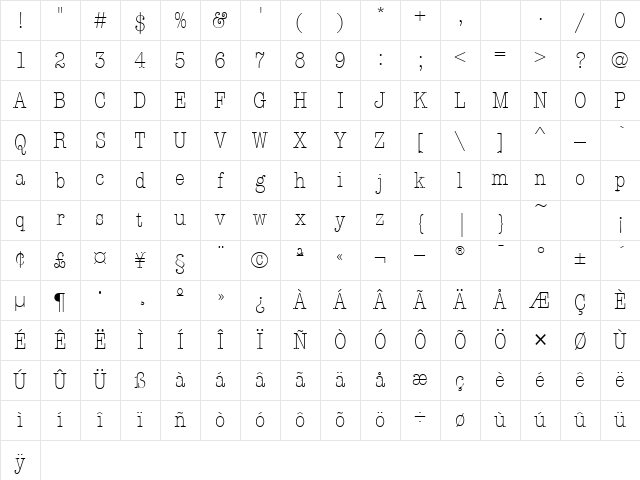
AmTypewriterCdITCTT Light Free Font
AmTypewriterCdITCTT Light
Foundry: International Typeface Corporation
Designer: Tony Stan/Joel Kaden
Design Context for AmTypewriterCdITCTT
AmTypewriterCdITCTT uses fixed-width spacing throughout, giving it the structured, systematic character associated with coding environments and technical documentation. Its slender proportions lend an understated elegance to any composition.